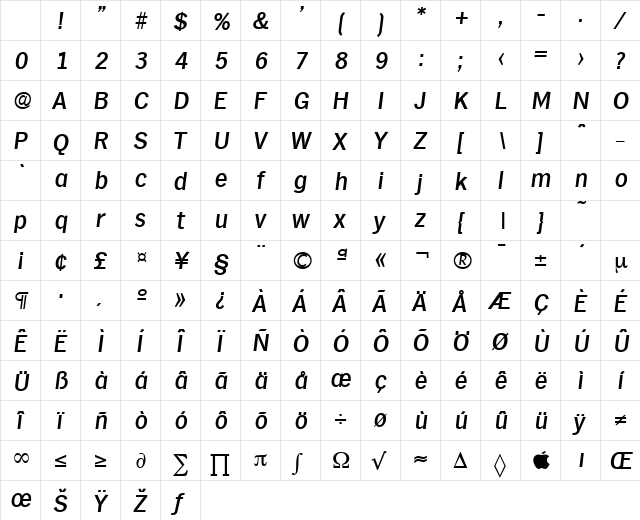
Complete Hamburg-Serial-Medium RegularItalic glyph index. Displaying only characters natively supported by Hamburg-Serial-Medium RegularItalic font.
Hamburg-Serial-Medium is a composed and adaptable typeface that performs quietly and consistently across a wide range of design contexts. The slanted form adds forward momentum and visual energy.
Pro Tip: Use Hamburg-Serial-Medium for emphasis, pull quotes, and subheadings where its slanted energy can add rhythm to the layout.